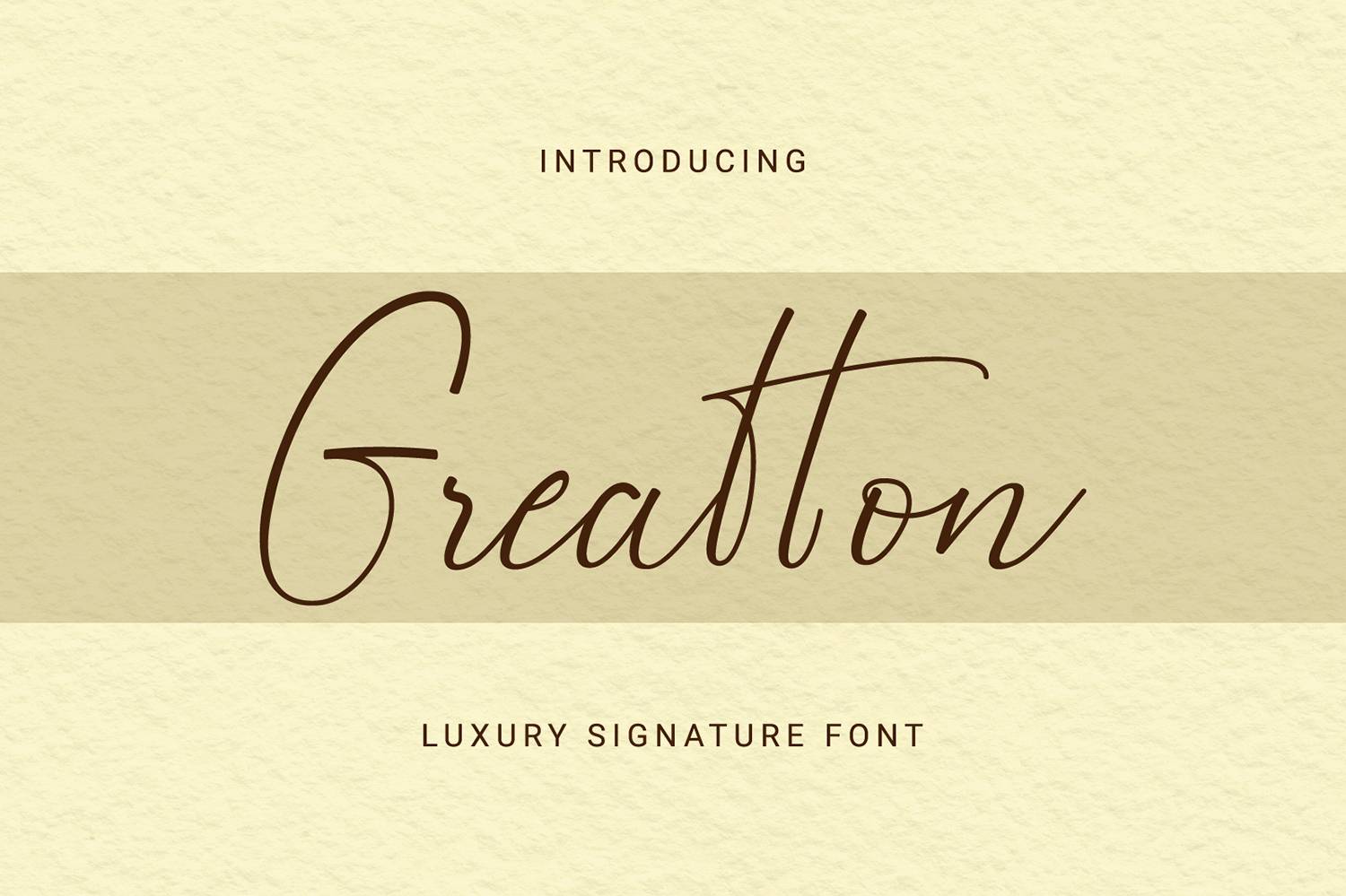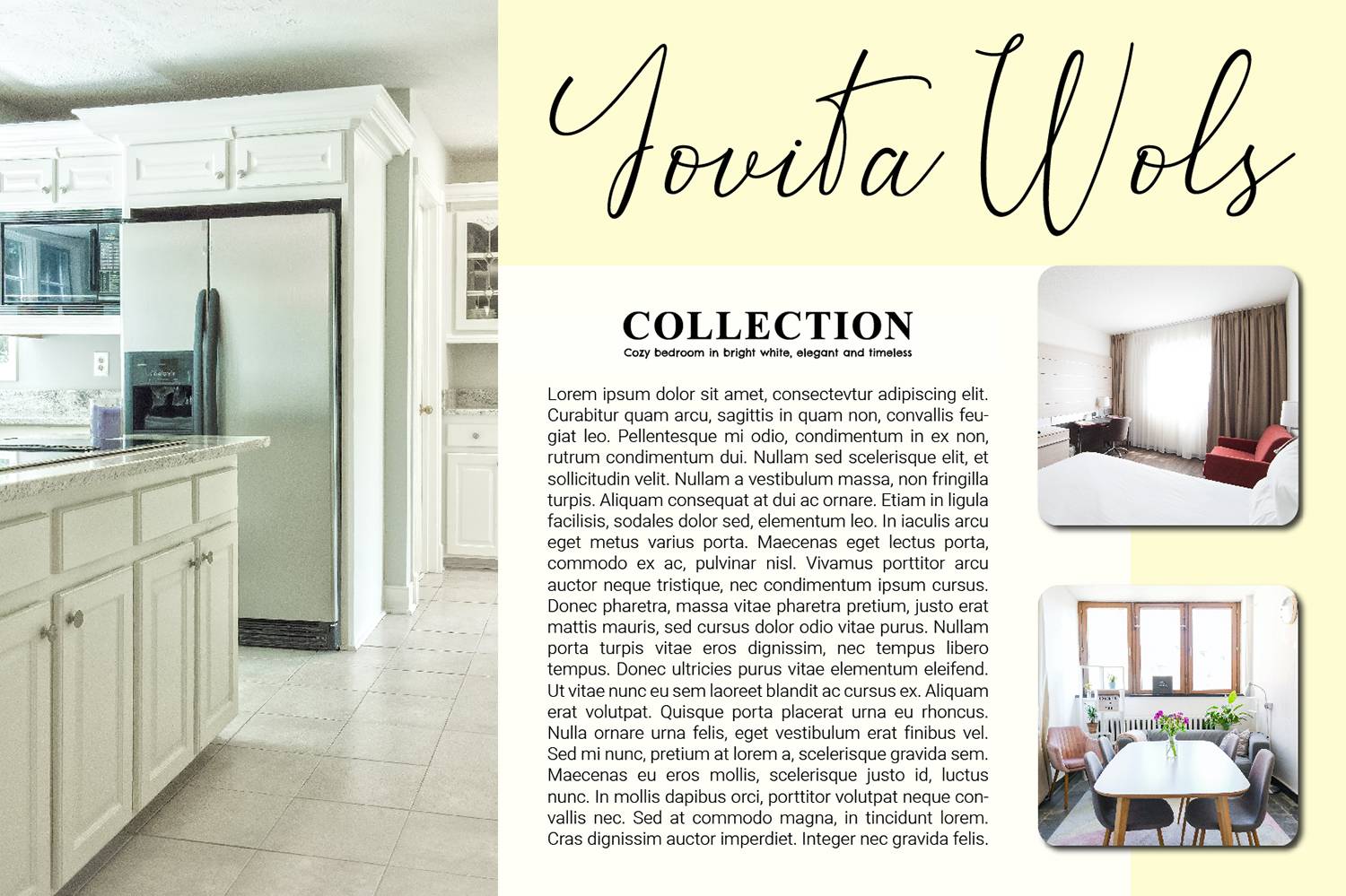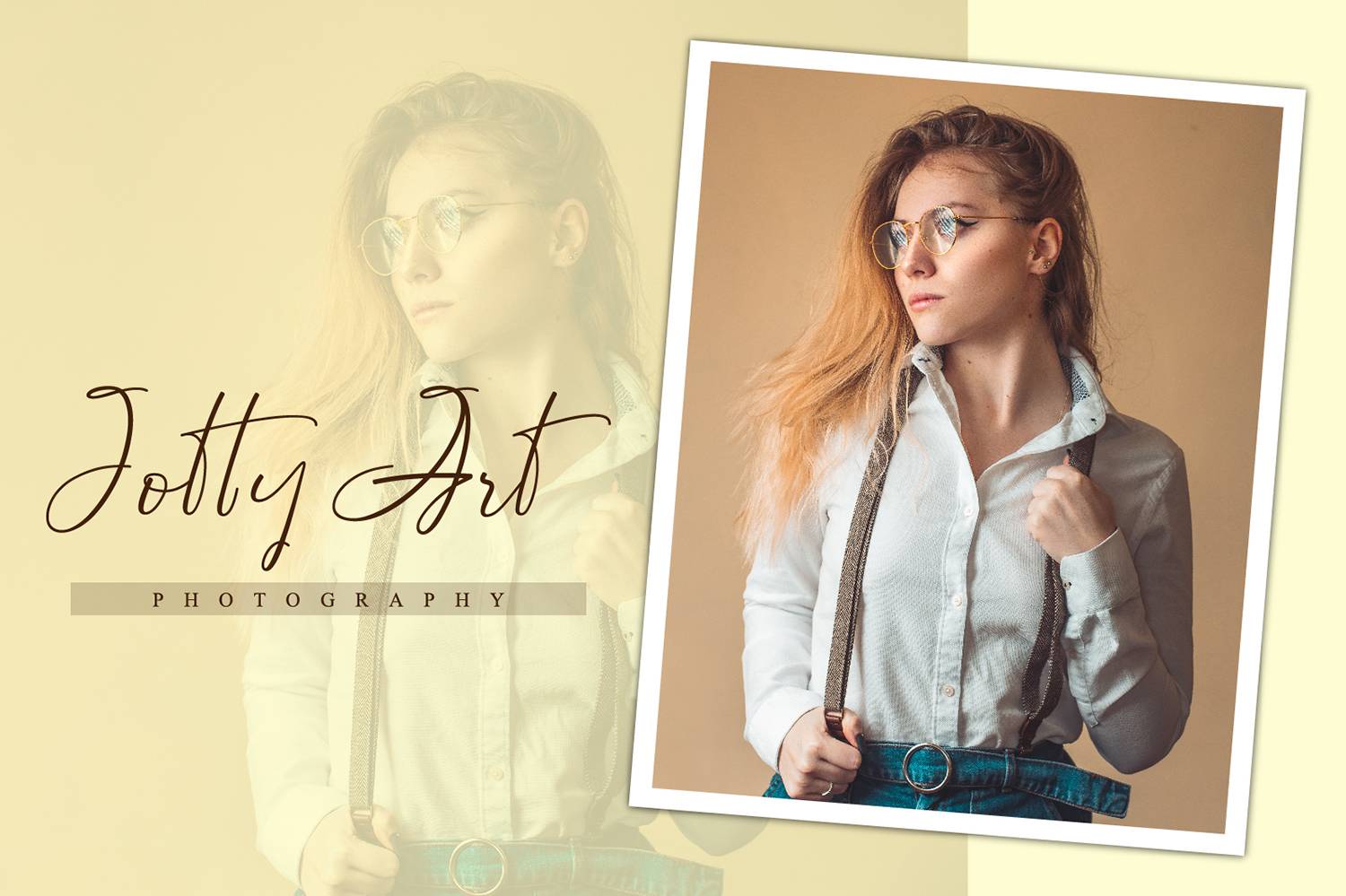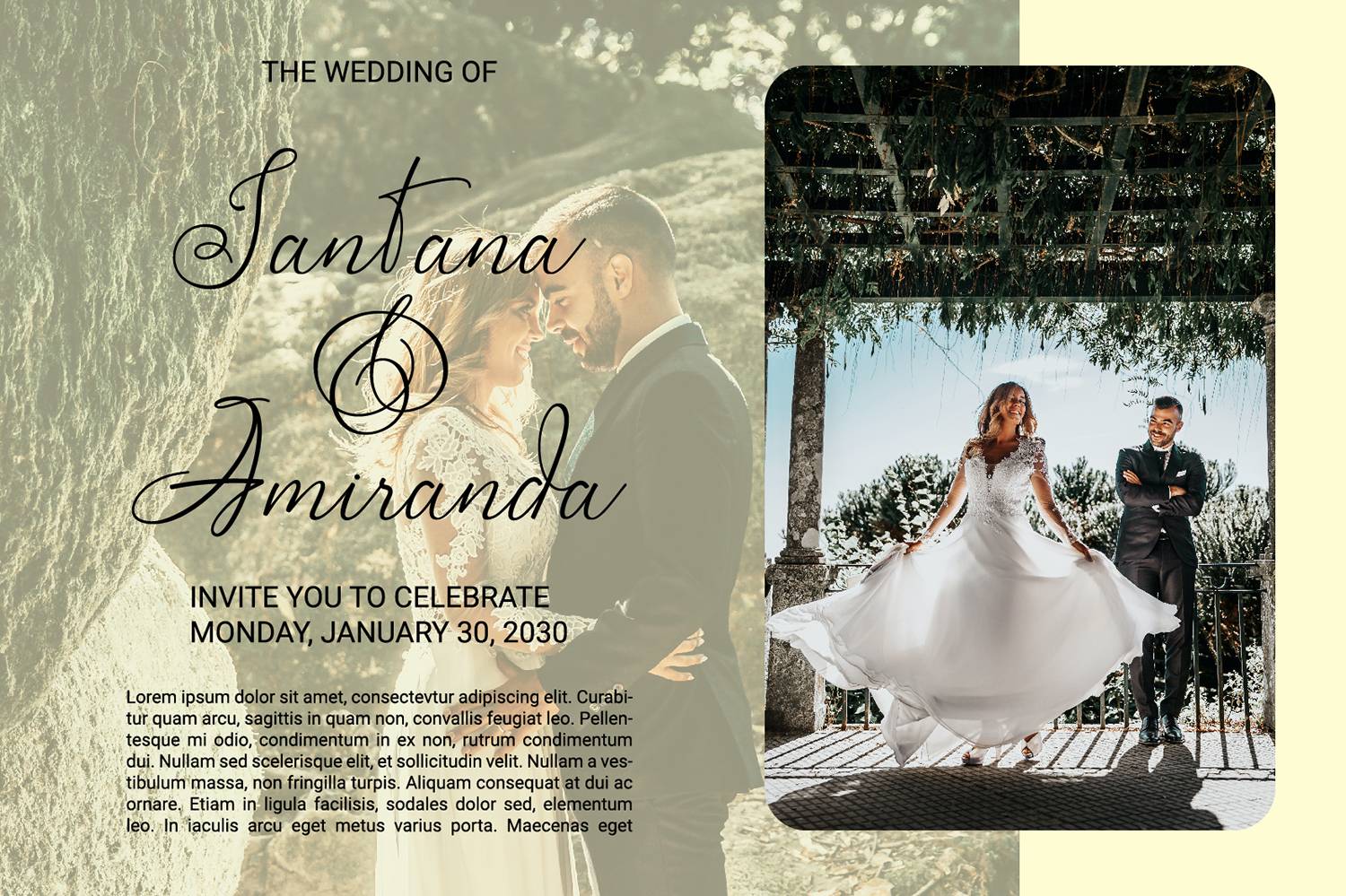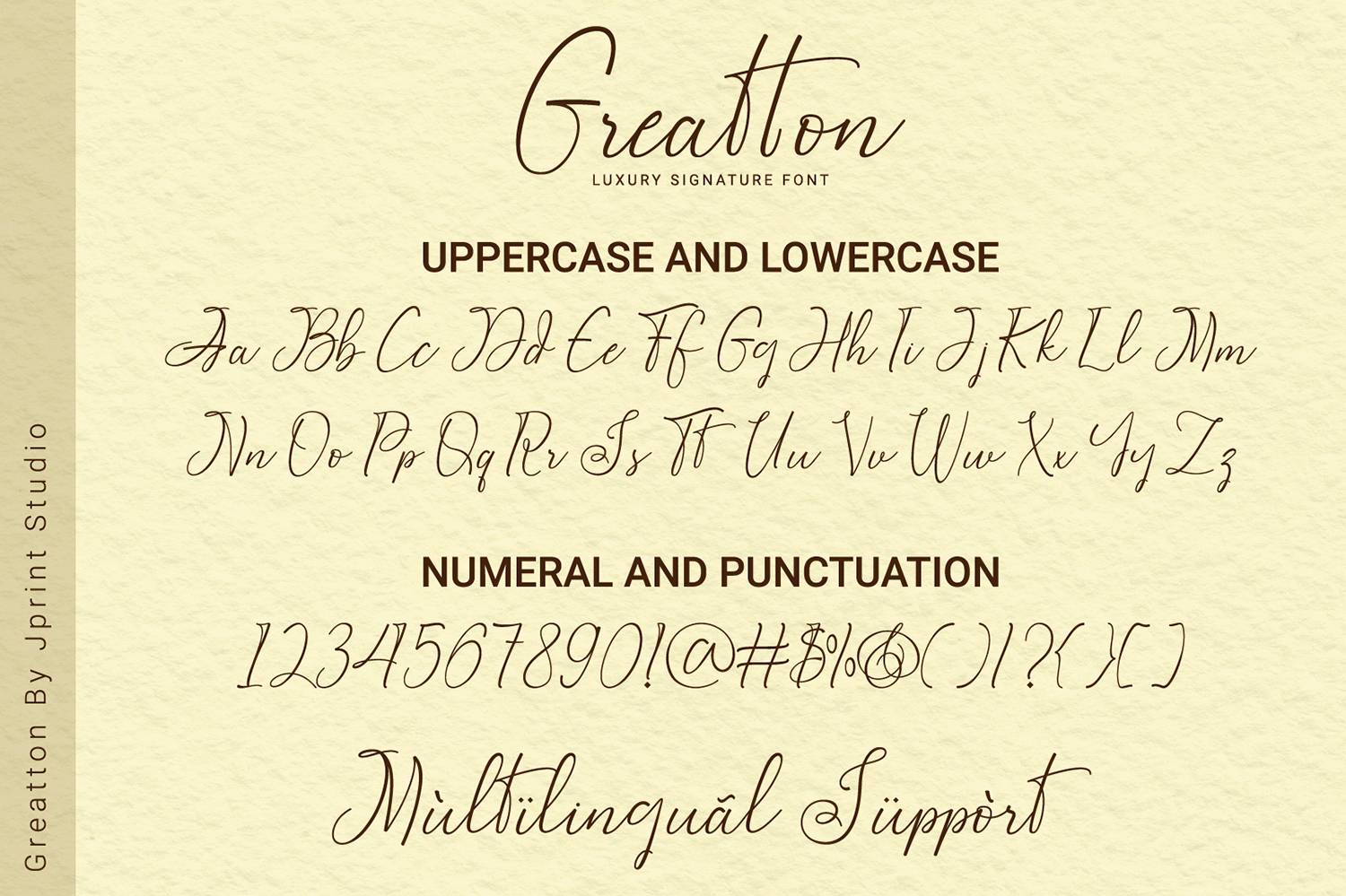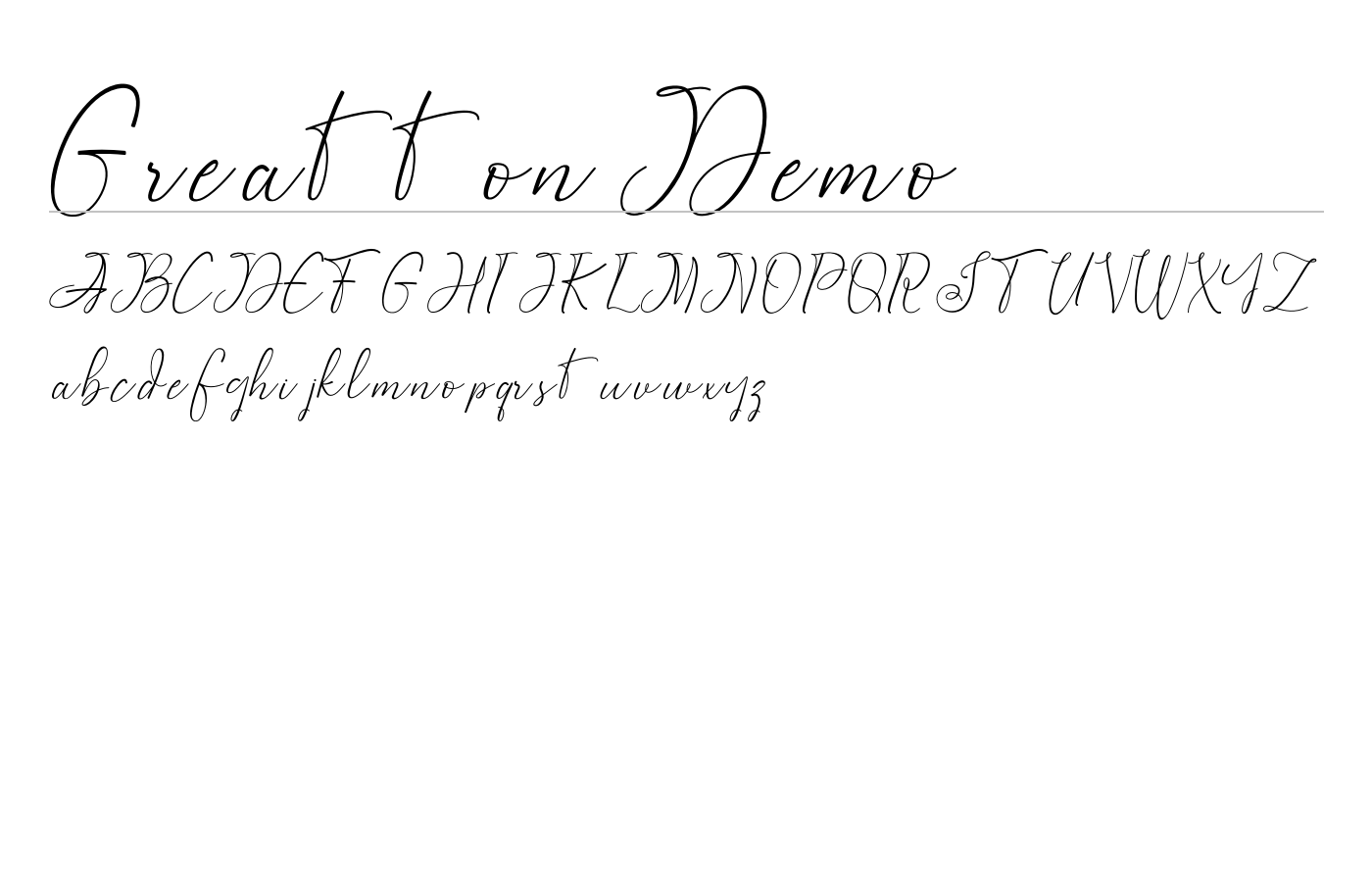
Greatton Font is an elegant, delicate script typeface characterized by its fine, flowing strokes and graceful curves, giving it a refined calligraphic feel. Its tall, slender letterforms with subtle flourishes create a sophisticated and stylish appearance, perfect for luxury branding, invitations, and decorative headlines where a touch of refined beauty is desired. This font works best in large sizes to showcase its intricate details, adding a sense of elegance and high-end charm to any design.
Greatton Font
About Greatton Font
| Font family | Greatton Font |
| Designer | Gais Zealani |